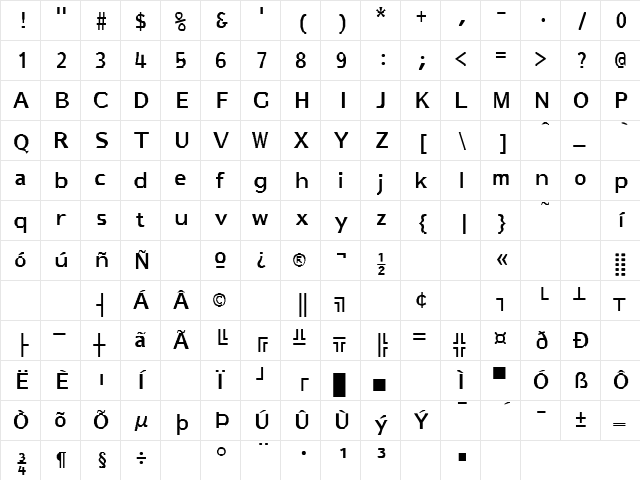
Rock And Roll 1 Regular
Design Context for Rock And Roll 1 Typeface
Rock And Roll 1 takes a measured approach to typography — its balanced proportions and neutral character make it a reliable workhorse for both digital and print work.